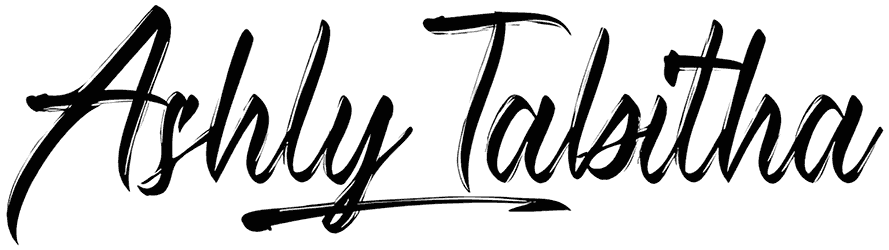
Ashly Tabitha Font
Ashley Tabitha font gives a cool and soft look to your texts and has a kind of look that you just can’t pass without doing a double-take. This script font has handwritten characters that have been styled in a way to start thick and end in a slightly bolder manner.
You can use it to write club signs, informal headlines, children’s puzzles, romantic movie titles, and summer event banners. This brush font resembles a paint-brush style with faded lines, but it doesn’t have any numerals or punctuational.